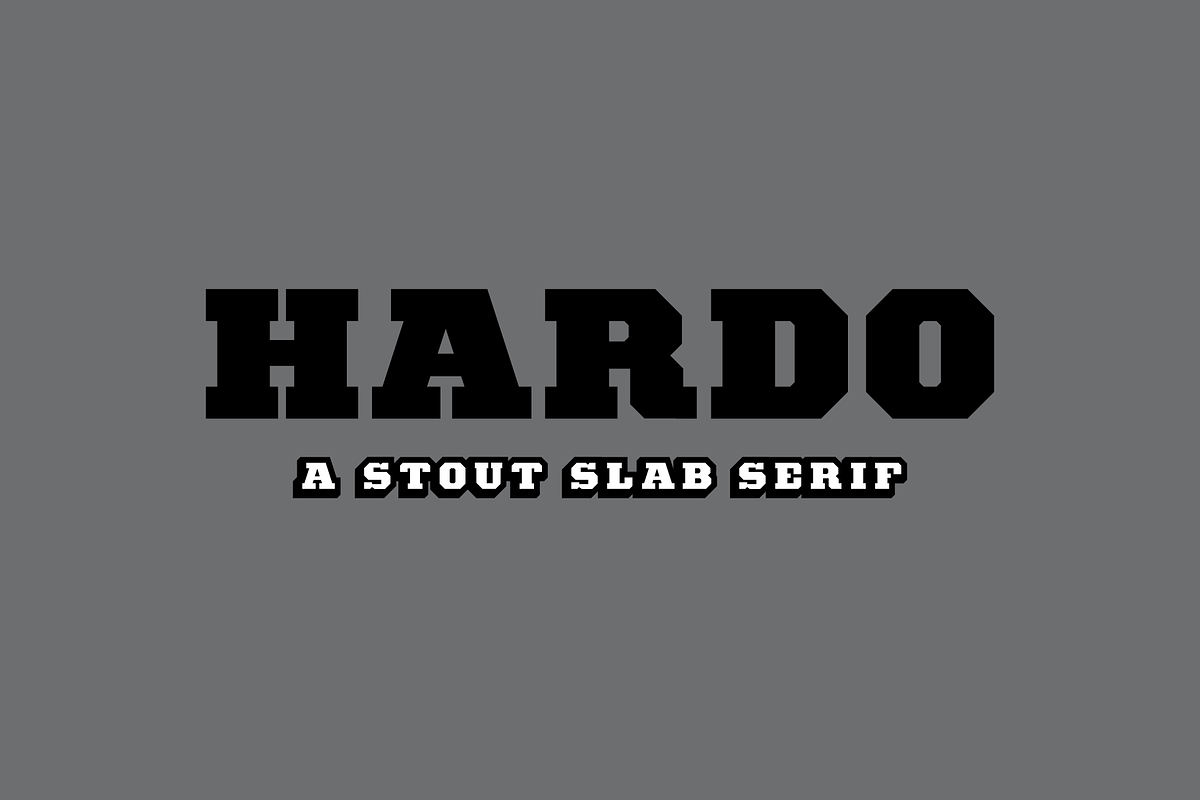
Hardo Font Free Download is a bold, condensed typeface built for strength, clarity, and impact. With its clean lines and powerful presence, Hardo is perfect for sports branding, headlines, posters, urban apparel, product packaging, and attention-grabbing logos.
This font combines modern design with a rugged edge, making it ideal for projects that demand confidence and authority. Its tight spacing and solid structure ensure your message stands out loud and clear, whether in print or on-screen.